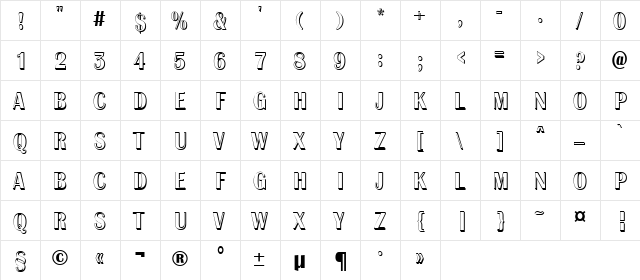
a_AlbionicTitulNrSh Regular Font Preview
a_AlbionicTitulNrSh Regular
Design Context for a_AlbionicTitulNrSh Typeface
a_AlbionicTitulNrSh takes a measured approach to typography — its balanced proportions and neutral character make it a reliable workhorse for both digital and print work.